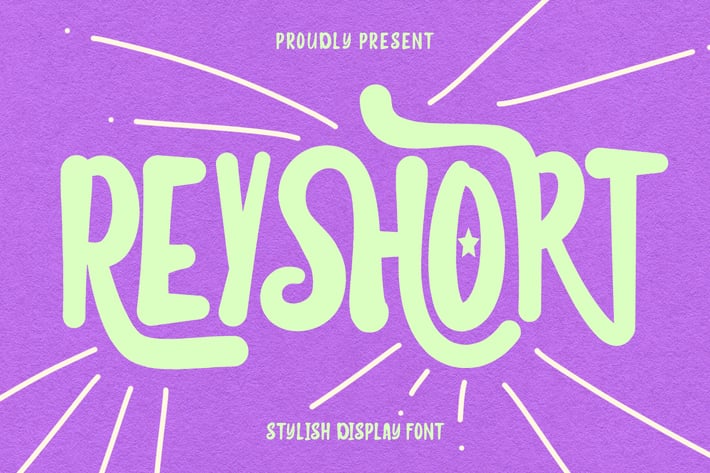
Reyshort Stylish Display Font
Reyshort stylish handmade brush display font, fun character with alternates and ligatures. To give you an extra creative work. Reyshort stylish handmade brush display font support multilingual language.